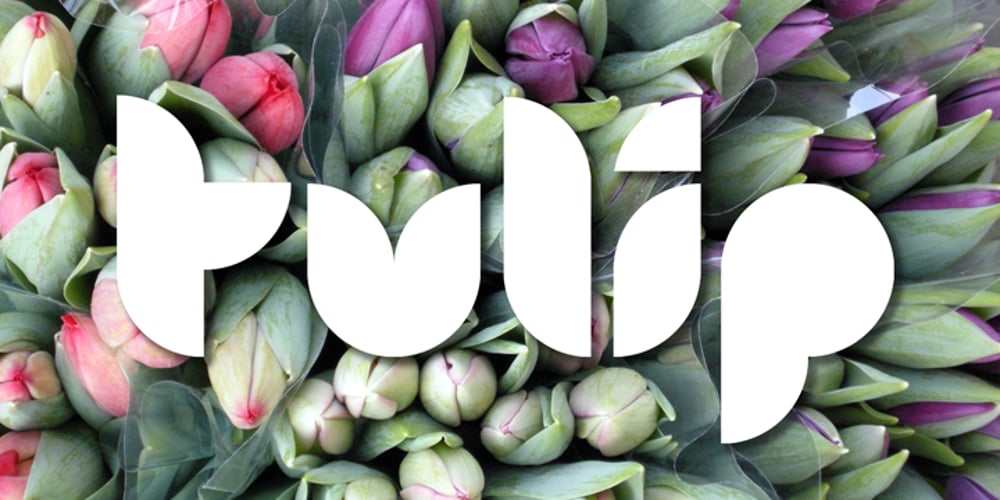
Tulip Font Family was designed by James Marsh and published by ArtyType. Tulip contains 1 styles and family package options. I’ve had an interest in typography ever since my college days, even submitting my NDD thesis on the subject. The basic concept for this typeface stems from that early creative period, hence the obvious 60’s retro feel. It’s only recently that I’ve have had the chance to carry through fully some of my dormant typographic ideas, but ‘better late than never’ as they say! The font’s characteristic style is based on repeating or rotating templates of a half and a quarter circle, the geometric, modular building blocks used here. The name was simply influenced by the letter ‘u’, which visually describes a stylized ‘tulip’ flower.